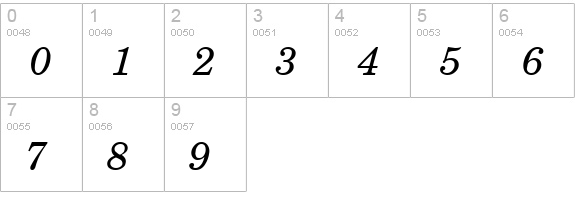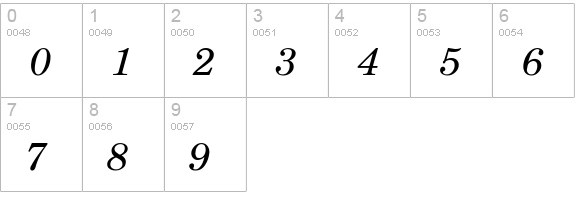
Schoolbook Italic Font Details
Schoolbook Italic is a distinctive, italic variant in the Schoolbook typeface family \xE2\x80\x94 well suited to design and typography projects.
Introducing Schoolbook Italic, a timeless and elegant font that adds a touch of sophistication to any project. With its graceful curves and delicate strokes, Schoolbook Italic exudes a sense of classic beauty, making it perfect for a wide range of applications. Whether you're designing invitations for a formal event, creating a stunning logo for your business, or crafting a professional-looking document, Schoolbook Italic is the ideal choice to elevate your designs to new heights. Its clean and legible letterforms ensure readability, while its italic style adds a hint of flair and personality. But what sets Schoolbook Italic apart from other fonts is its accessibility. We believe that great design should be available to everyone, and that's why we're proud to offer this font completely free of charge. You read that right – Schoolbook Italic is freely available for download at FontsMarket.com, allowing you to bring a touch of elegance to your projects without breaking the bank. So why wait? Unlock the full potential of your designs with Schoolbook Italic. Download it today and discover how this versatile font can transform your creations into works of art. With its timeless appeal and its availability as a free download, Schoolbook Italic is a must-have for any designer or creative professional. Don't miss out on this incredible opportunity – get Schoolbook Italic now and let your creativity shine.